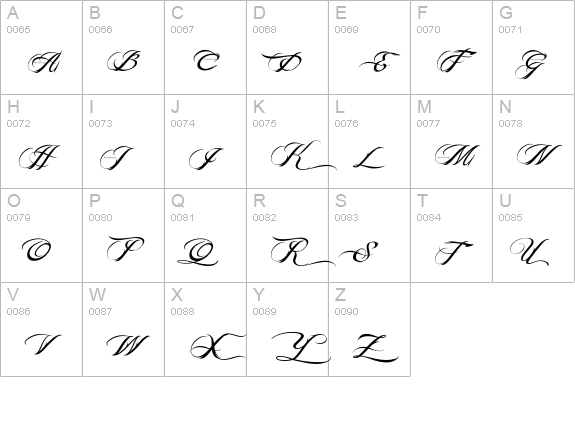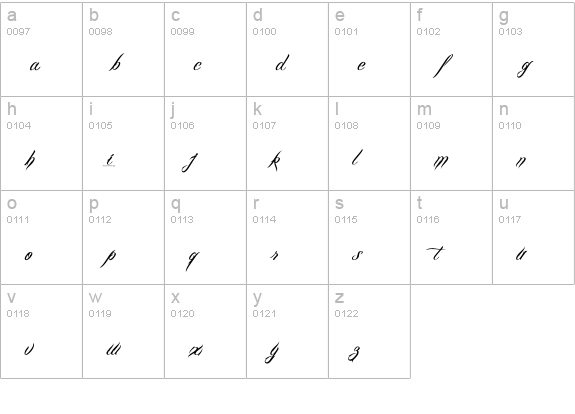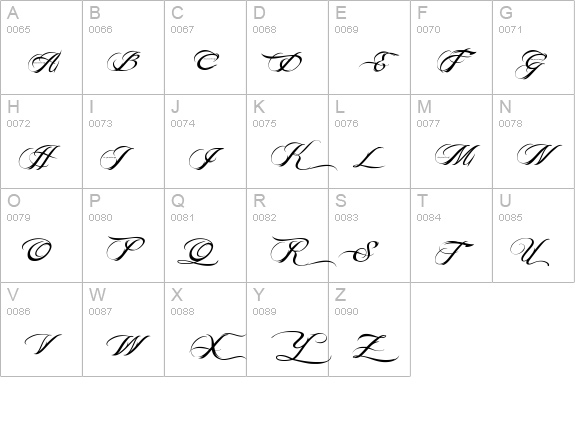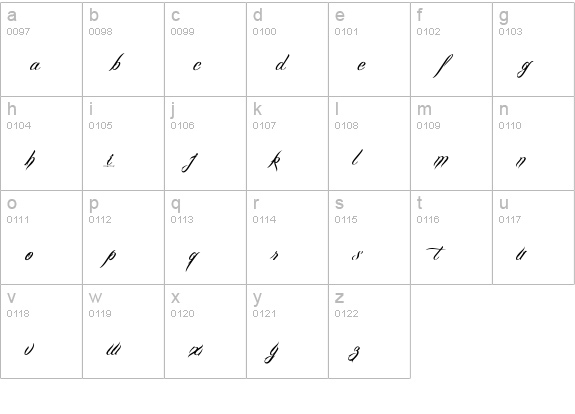
BILLY ARGEL FONT Font Details
BILLY ARGEL FONT font is a stunning display typeface that exudes a unique blend of elegance and playfulness. Designed by the talented Billy Argel, this font captivates with its bold yet refined letterforms that are sure to make a lasting impression. With its intricate details and artistic flair, BILLY ARGEL FONT font adds a touch of sophistication to any design project. Whether you're looking to create eye-catching logos, captivating headlines, or stylish branding materials, this font is guaranteed to elevate your work to new heights. One of the best things about BILLY ARGEL FONT font is that it is absolutely free. That's right, this exceptional typeface can be downloaded at no cost from FontsMarket.com, making it accessible to designers, artists, and creatives all around the world. Not only does BILLY ARGEL FONT font offer a wide range of characters and glyphs, but it also features versatile ligatures that allow for seamless letter combinations and smooth visual flow. This makes it perfect for creating visually stunning, one-of-a-kind designs that are sure to leave a lasting impression. Whether you're a professional designer or a passionate hobbyist, BILLY ARGEL FONT font is a must-have in your font collection. Its versatility, elegance, and striking presence set it apart from the rest, making it a go-to choice for any design project. So, why wait? Head over to FontsMarket.com today and download BILLY ARGEL FONT font for free. Unleash your creativity and let this exceptional typeface transform your designs into works of art.